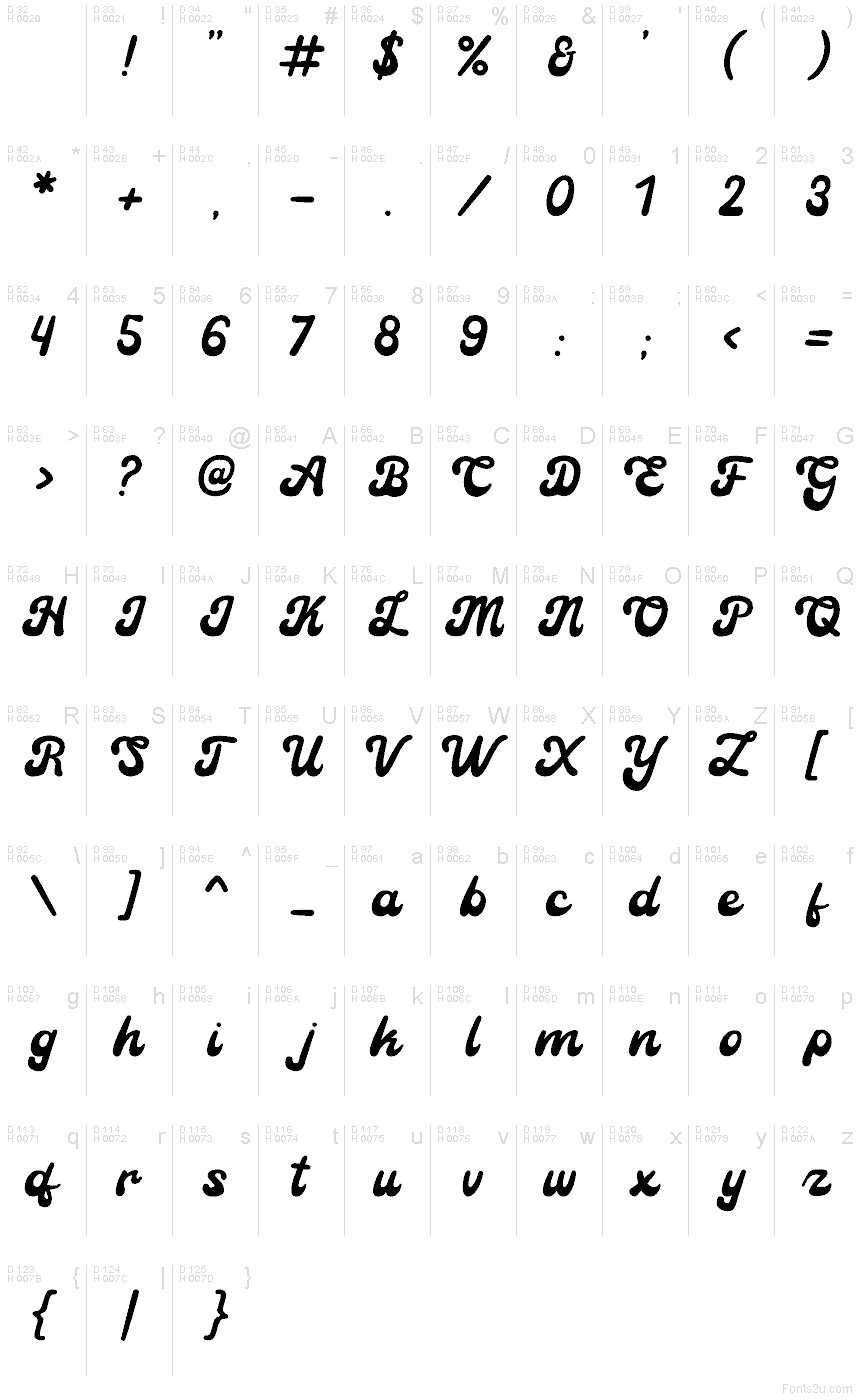
Retro Vintage
Retro Vintage font by Densu Creative is a free retro brush font. It stands out with velvety, inky strokes, syrupy connections, and rounded terminals that feel straight from a hand-painted 70s shop sign. The generous x-height and steady rhythm keep it friendly and legible while the chunky curves add a warm, nostalgic pop.
Using Retro Vintage, headlines and wordmarks snap with personality—great for logos, packaging, diner menus, t‑shirt graphics, badges, stickers, and event posters. This free font includes easy swashes for extra flair. Pair it with a clean condensed sans to let the brushy forms sing, and set it big with a touch of tight tracking.